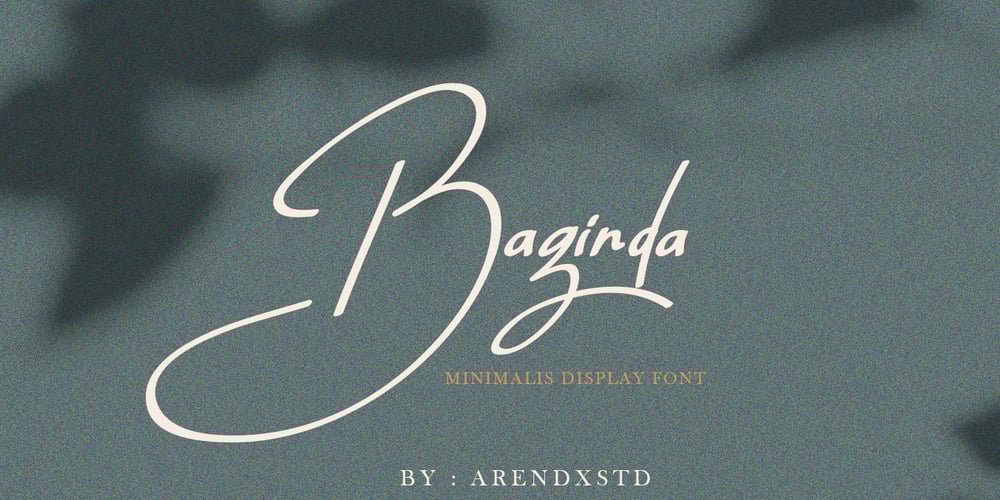
Baginda Font Family was designed by Asep Rendi and published by Arendxstudio. Baginda contains 1 styles and family package options. Baginda is a minimalist with hand-written characters that have their own distinct characteristics that differ from previous font designs and which carries confidence. This font is very appropriate for you to put into your project designs.